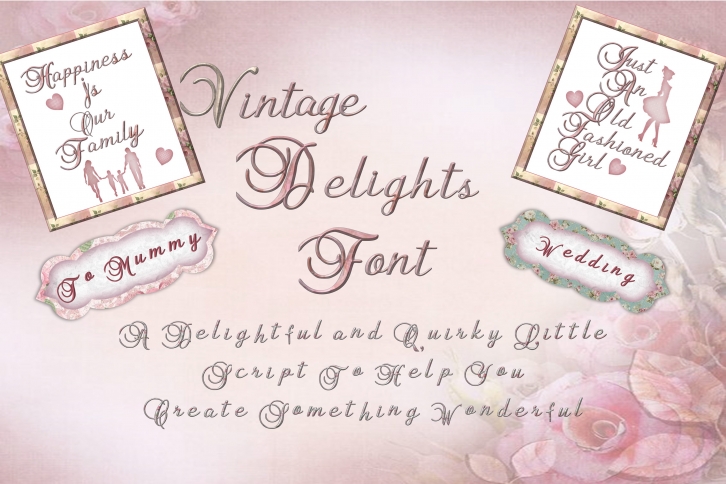
Vintage Delights Quirky Font Download
Vintage Delights Quirky is a trendy and unique font with an authentic style. It was designed by The Paper Princess and it's a great choice for creative people who need such a font. It was released on October 23, 2019 and the file size is 1.33 MB. Vintage Delights Quirky will add an organic vibe to any design idea!